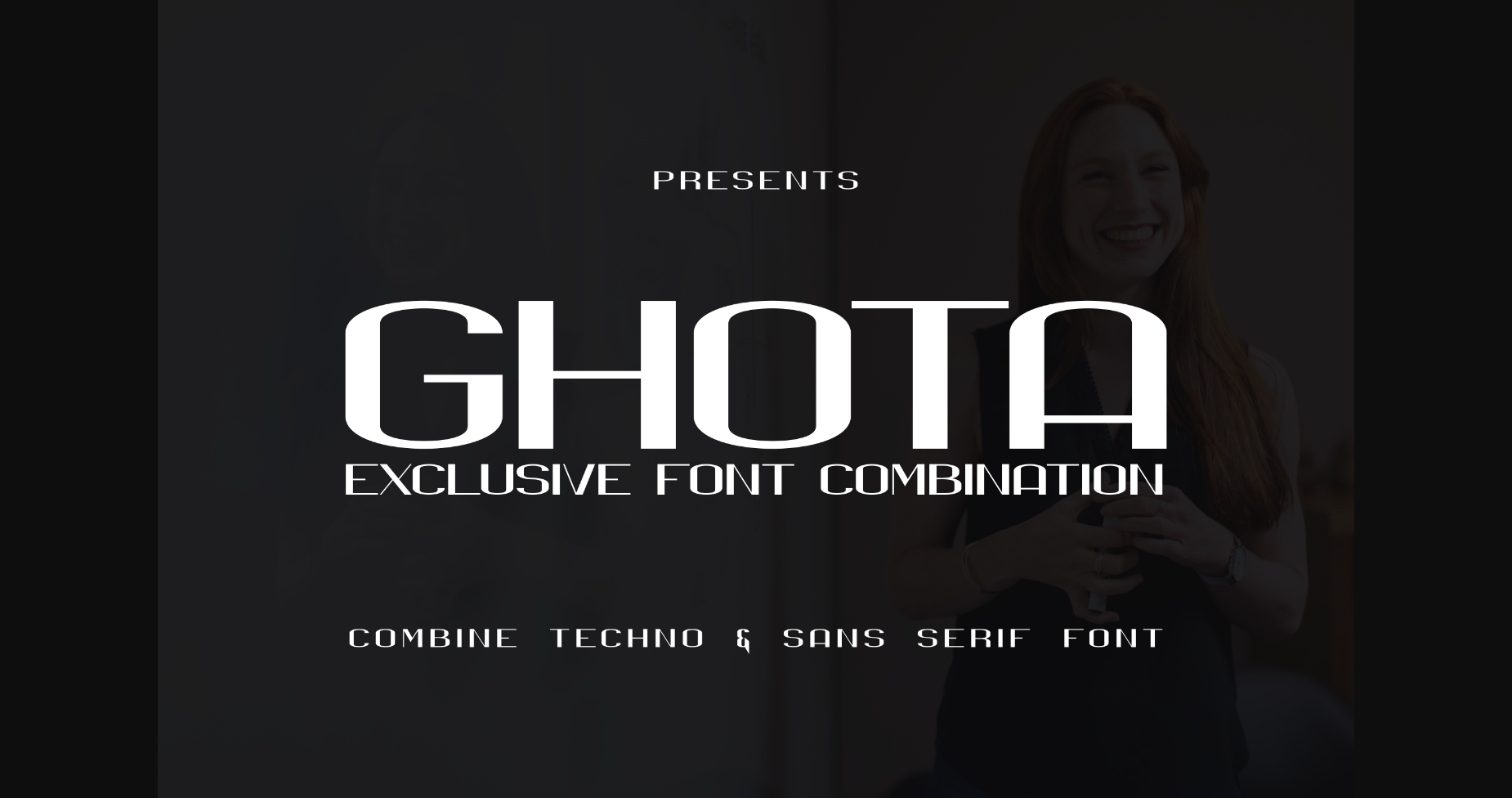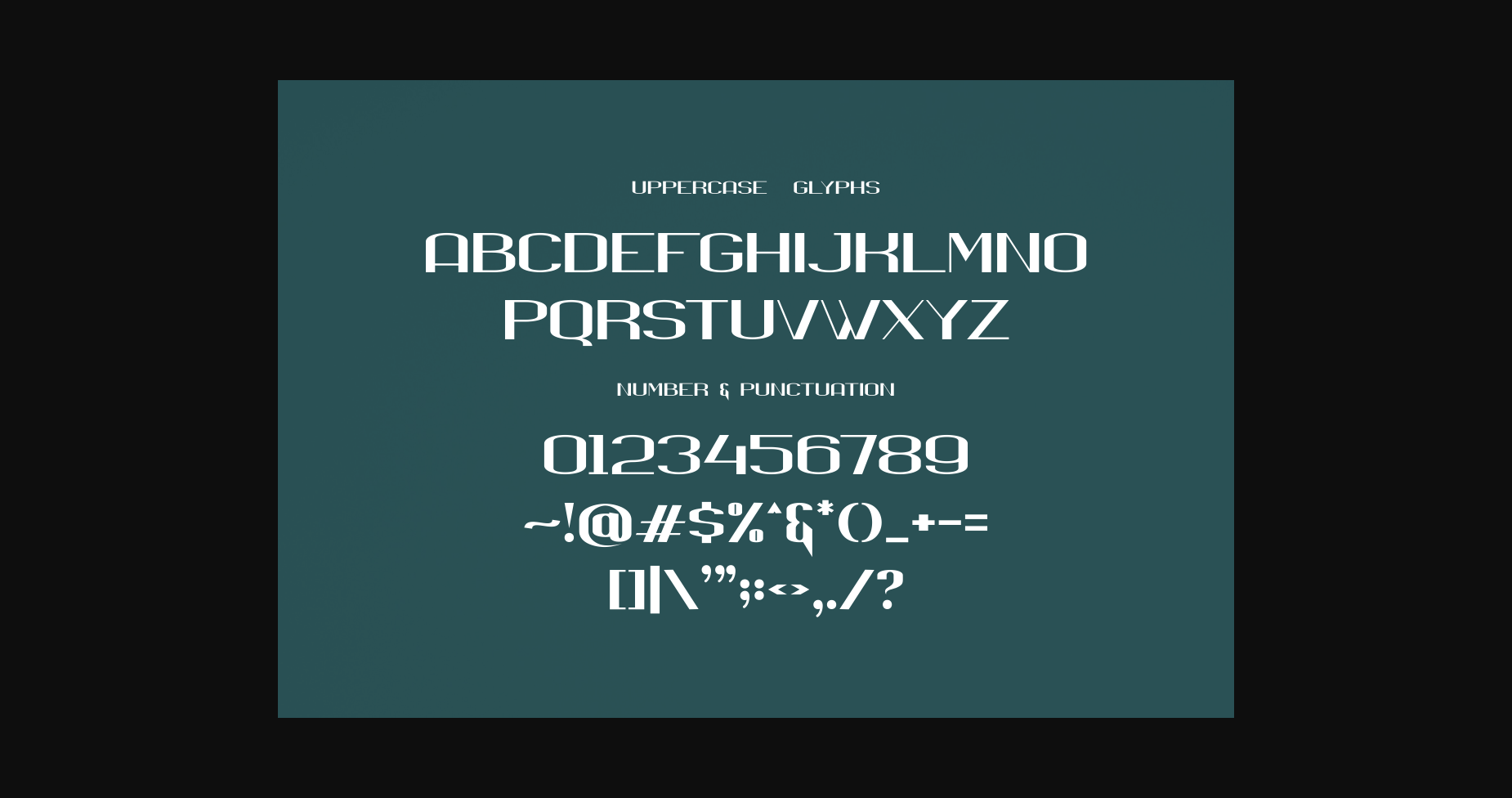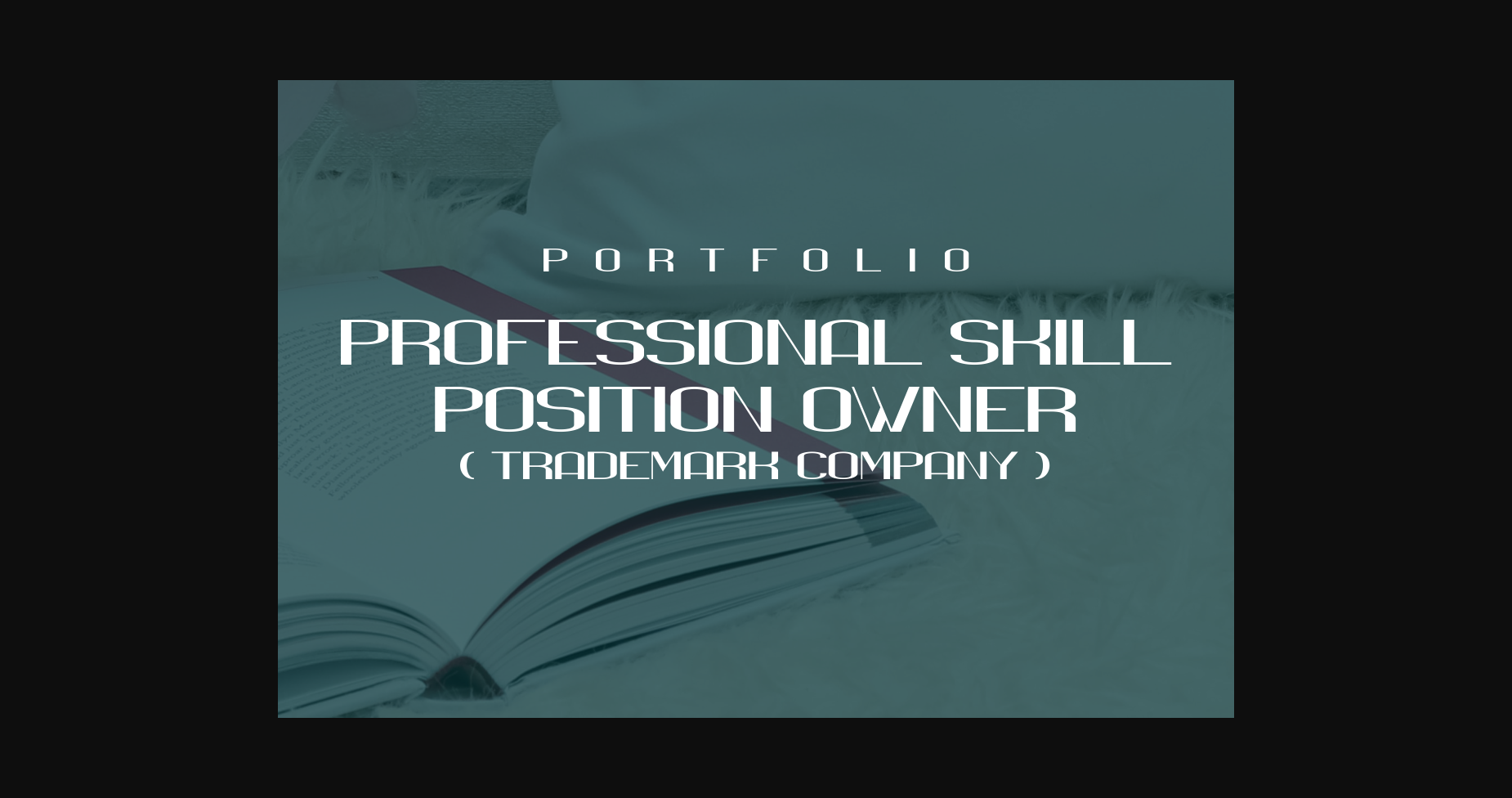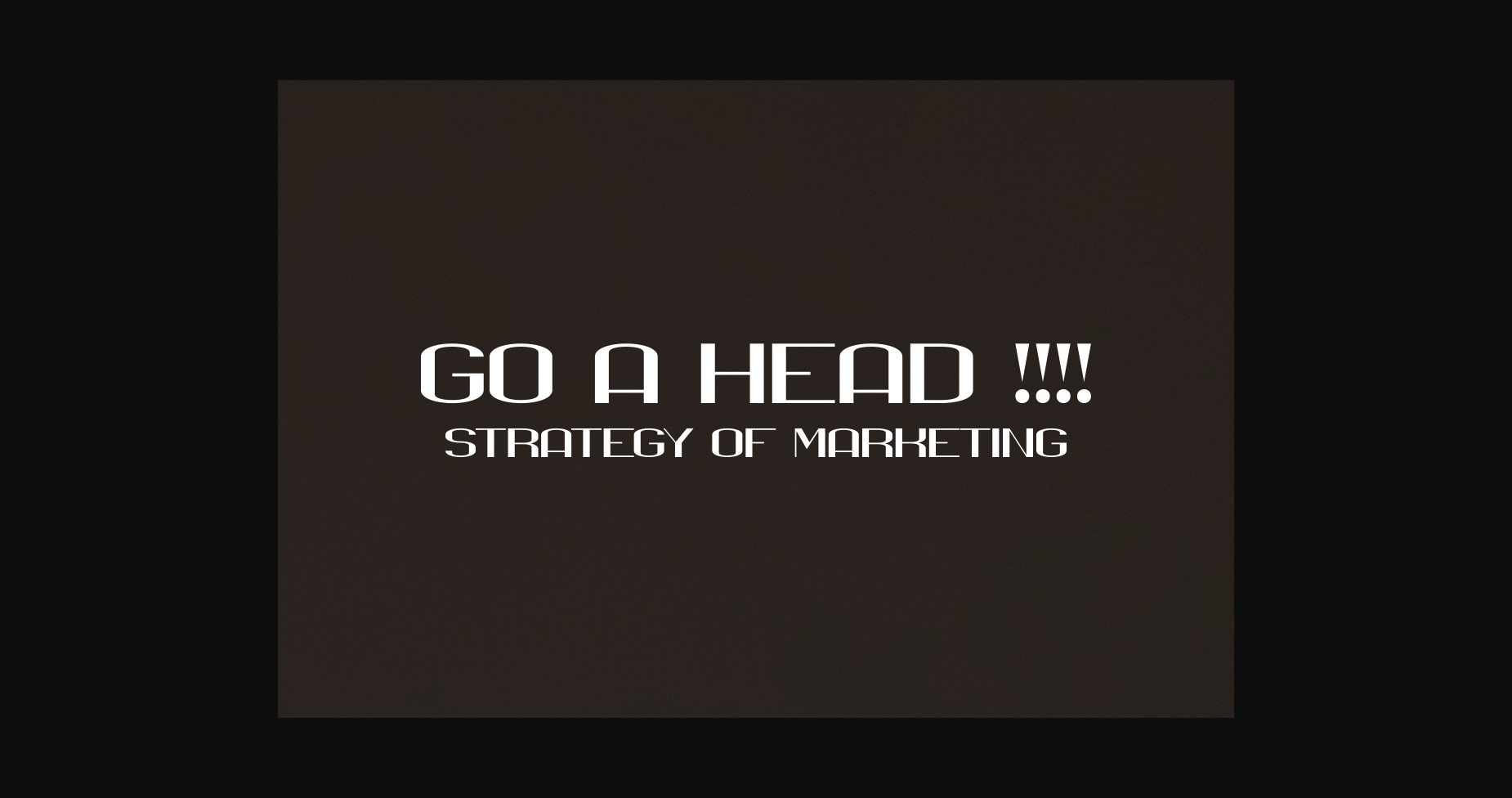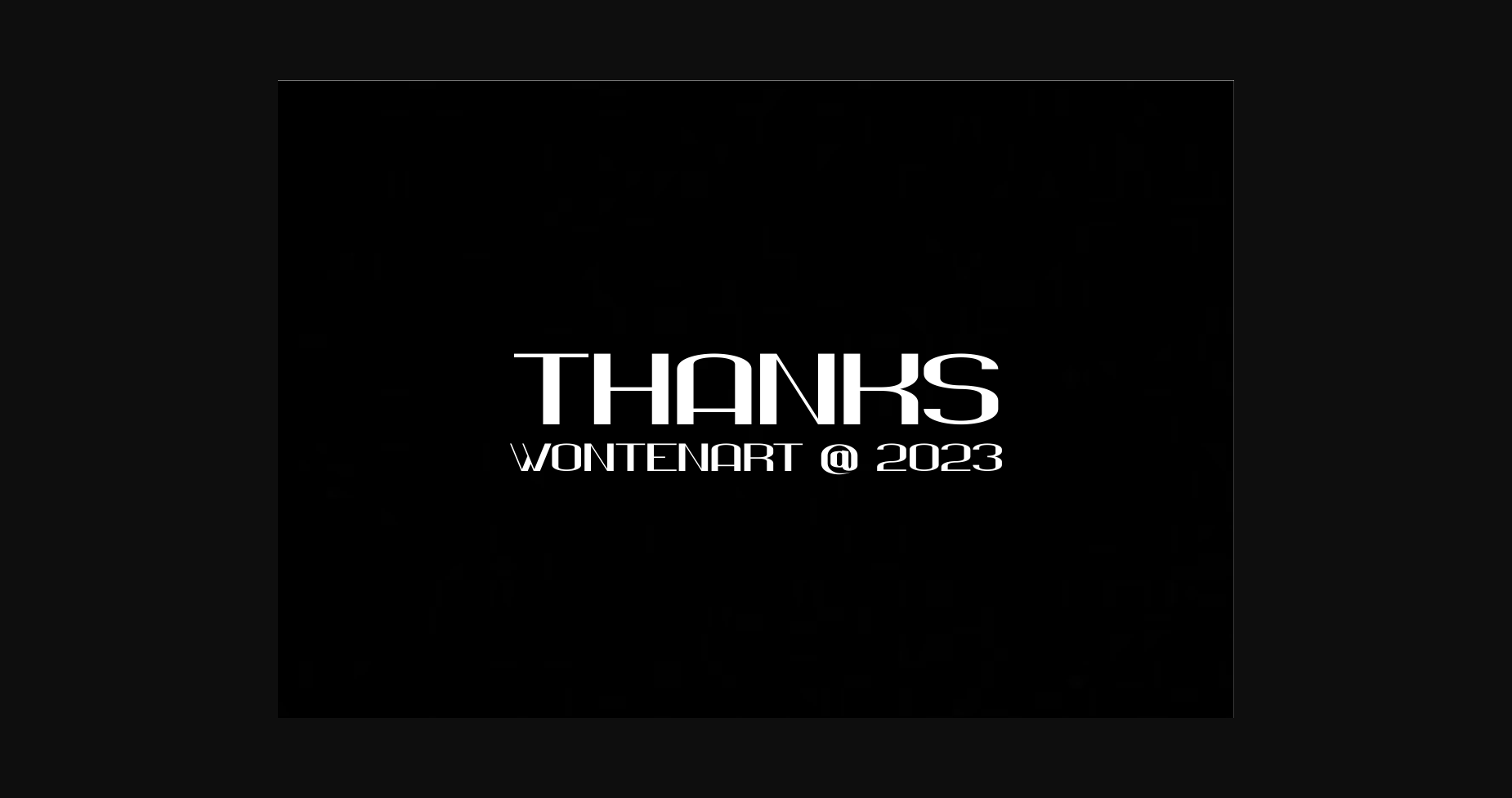
Ghota Exclusive Font
About Ghota Exclusive Font
Is a font combination of sans-serif thinking combined with techno shapes to form a font like this.
This font is suitable for exclusive writing such as:
1. Portfolio
2. Official documents such as certificates or diplomas
3. Income balance report because there is a thick-thin font form
4. Affirmation of a product description, for example, writing ” now !!!! ” or a Question
5. And maybe the Designers found something else for this font